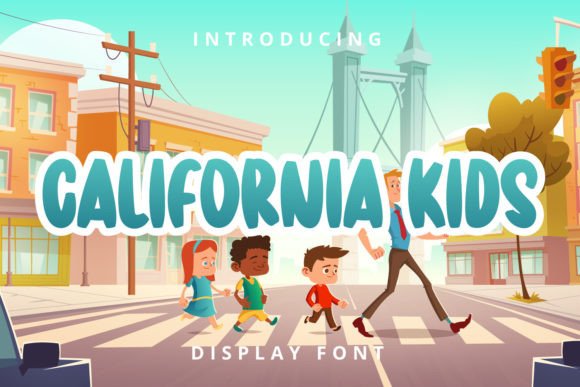
The Ultimate Guide to California Kids Font: A Fun and Playful Display Font
I’ll never forget the time I was working on a children’s activity book project, and I was struggling to find the perfect font to match the playful and adventurous vibe of the illustrations. That’s when I stumbled upon the California Kids font, and it instantly became the perfect fit. In this article, we’ll dive into the world of California Kids, exploring its features, uses, and everything in between.
A Personal Review: What I Love About California Kids
California Kids is a fun, jolly, and incredibly charming display font that embodies playfulness and authenticity. Here are some things I love about it:
• ✨ Unique and quirky design: California Kids has a one-of-a-kind look that’s sure to grab attention and add a touch of personality to any project.
• ✅ Perfect for kids’ projects: The font’s playful and youthful vibe makes it an excellent choice for children’s activity books, school projects, and other kid-friendly content.
• 🎉 Highly versatile: California Kids can be used for a wide range of projects, from posters and flyers to digital graphics and more.
While California Kids is an amazing font, there are a few things to keep in mind:
• 🤔 Legibility at small sizes: Like many display fonts, California Kids can be a bit tricky to read at smaller sizes. It’s best used at larger sizes, such as headings or titles.
• ⚠️ Limited use in formal contexts: Due to its playful nature, California Kids might not be the best fit for formal or professional projects, such as business reports or academic papers.
The Backstory Behind California Kids
California Kids was designed with one goal in mind: to create a font that embodies the carefree spirit of childhood. The font’s creator drew inspiration from classic children’s books, beachy vibes, and the laid-back California lifestyle. The result is a font that’s equal parts playful, fun, and charming.
What is California Kids font best used for? California Kids is perfect for kids’ projects, school materials, and any design that requires a playful, youthful vibe.
Does California Kids support OpenType features? Yes, California Kids supports OpenType features, such as ligatures, stylistic alternates, and glyphs.